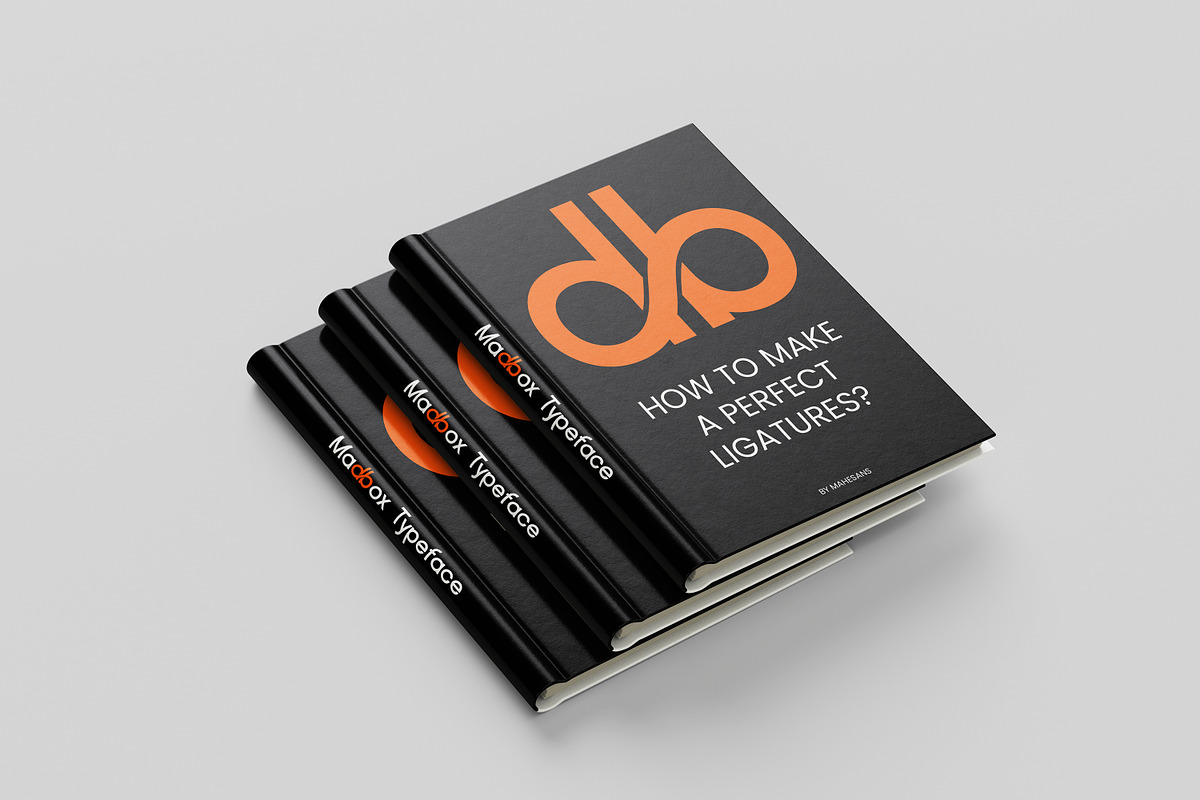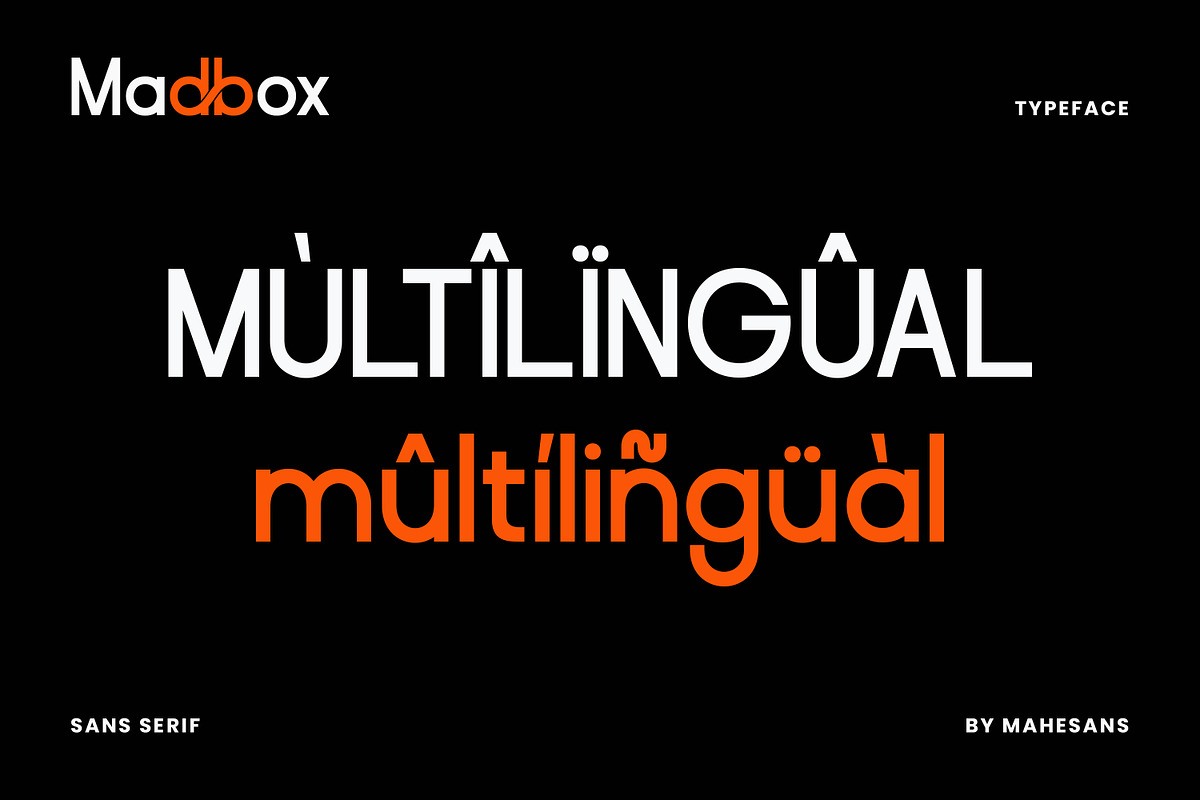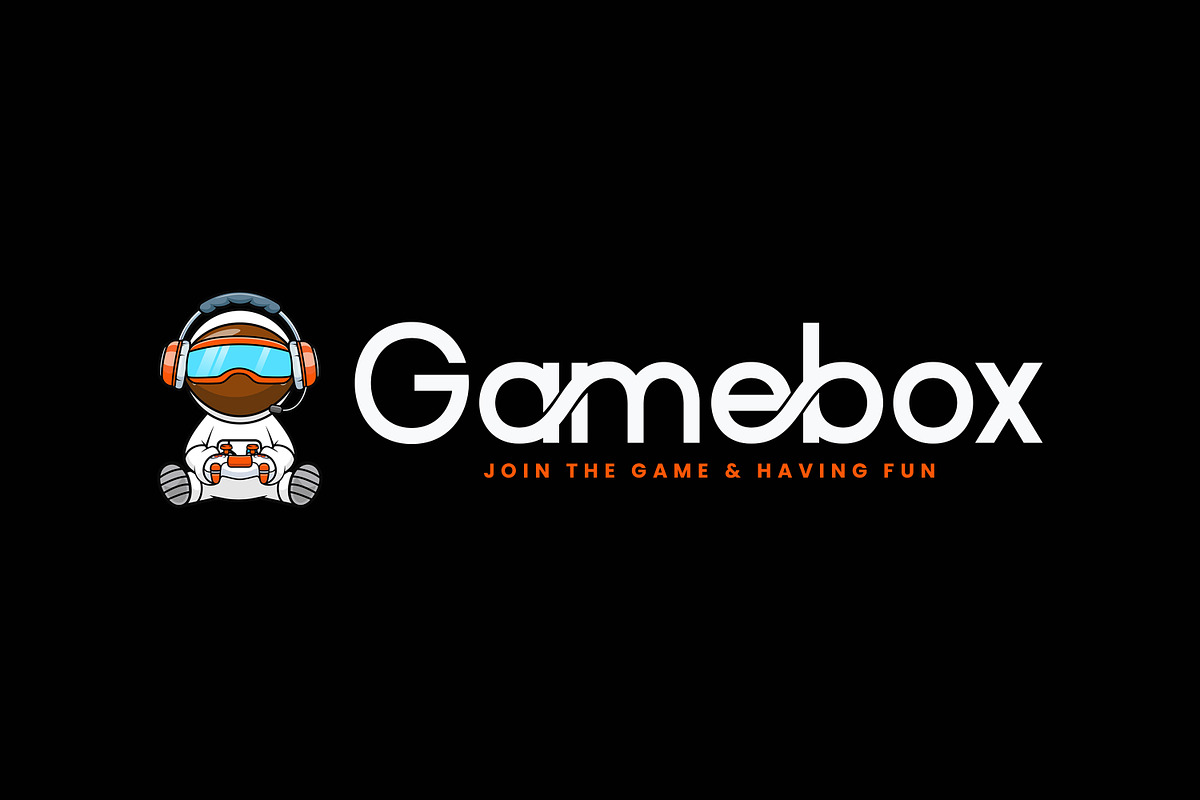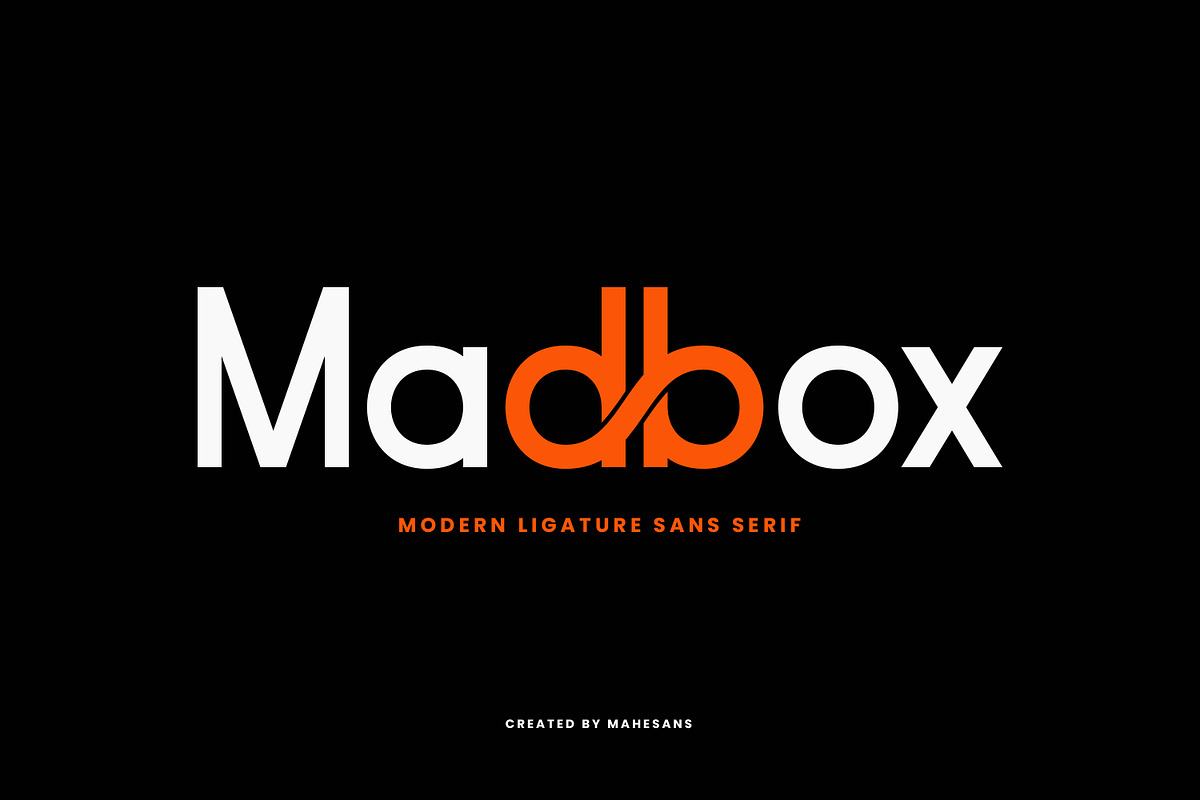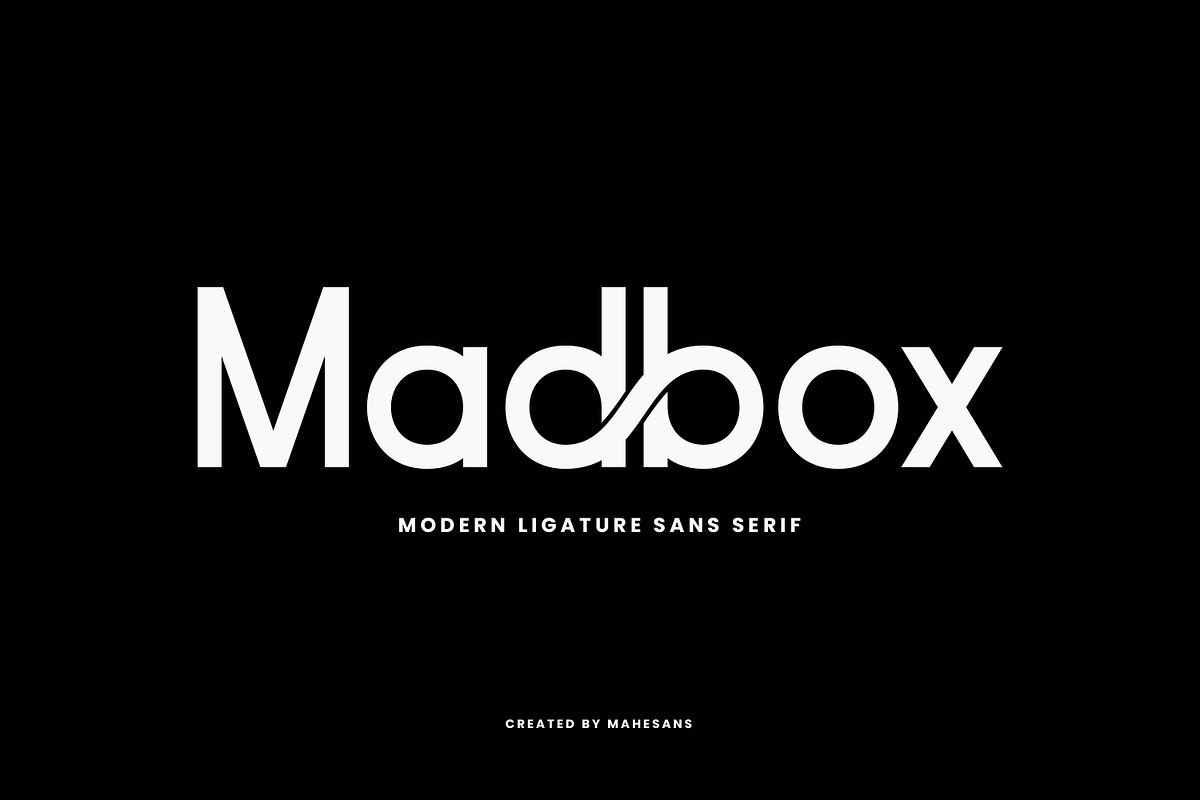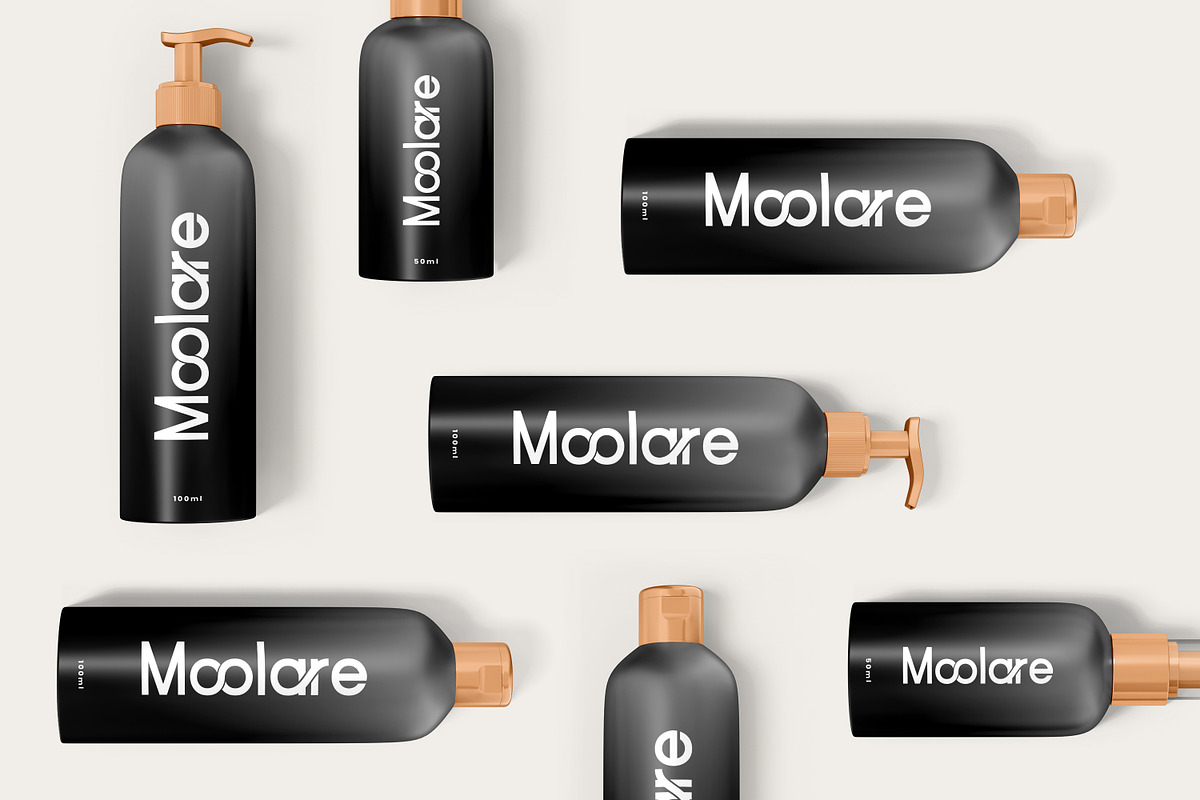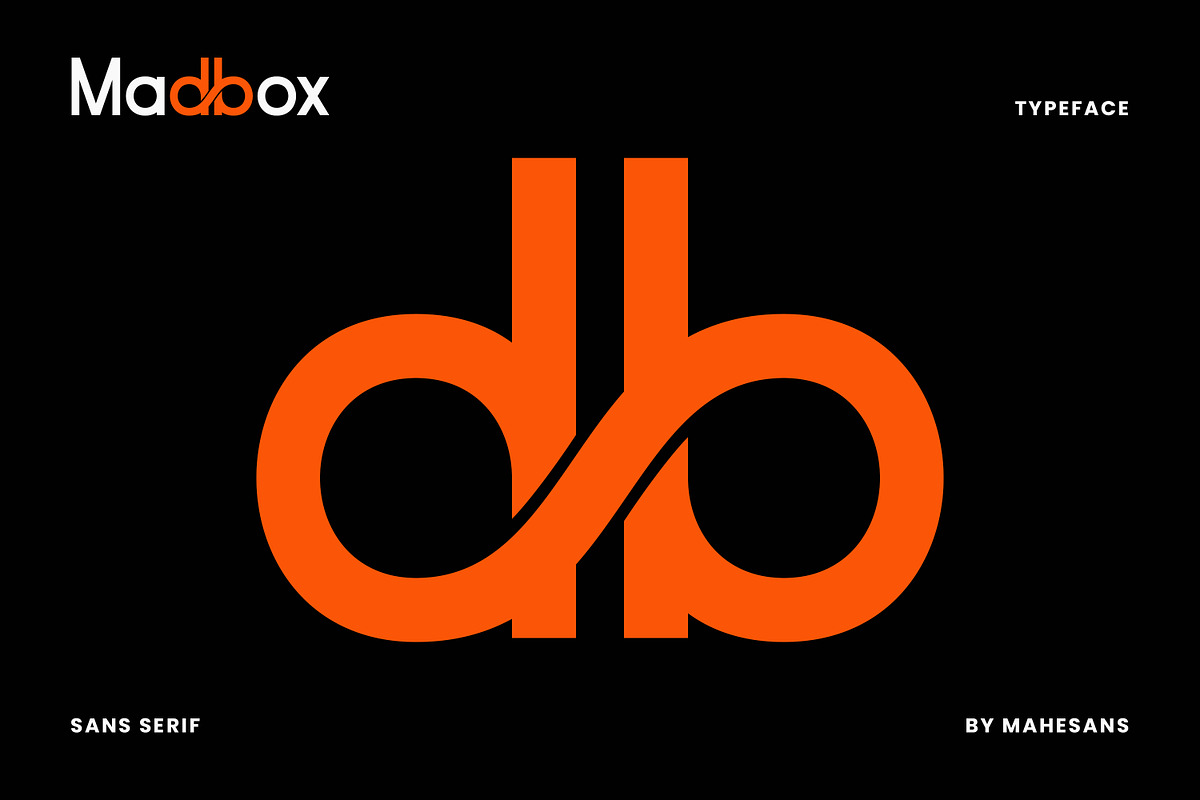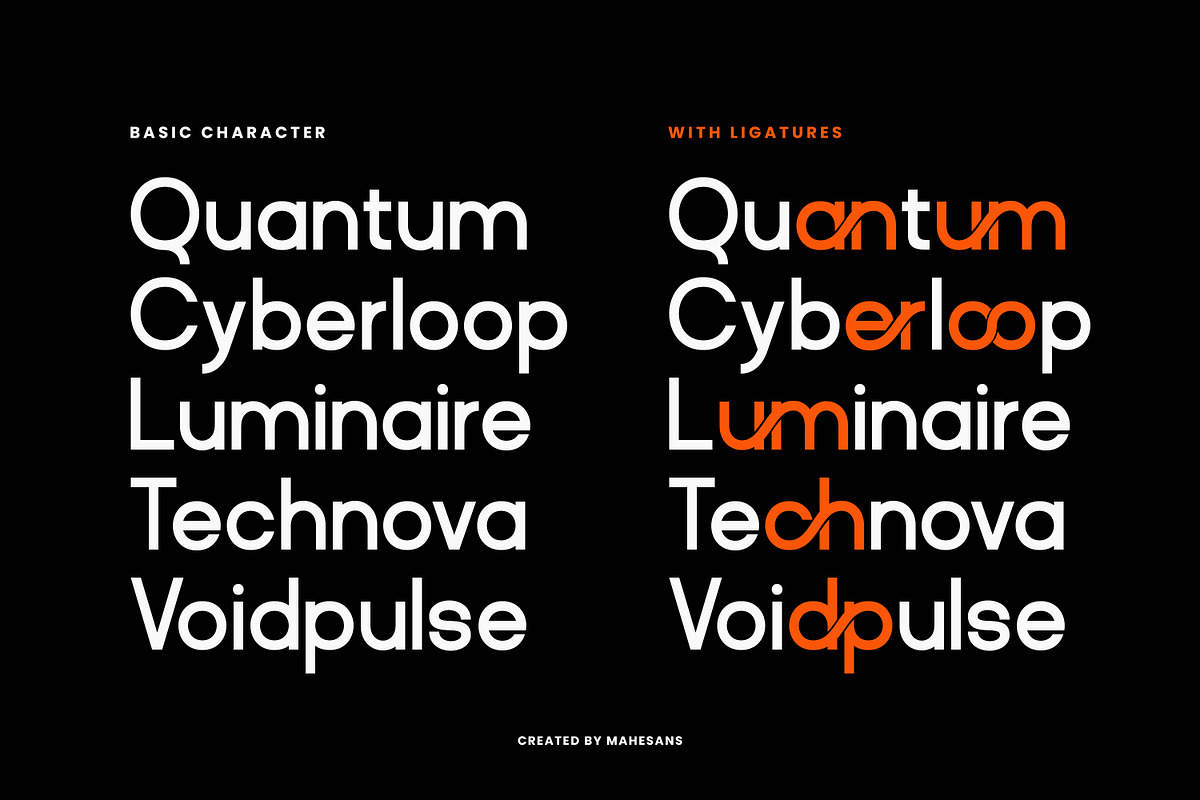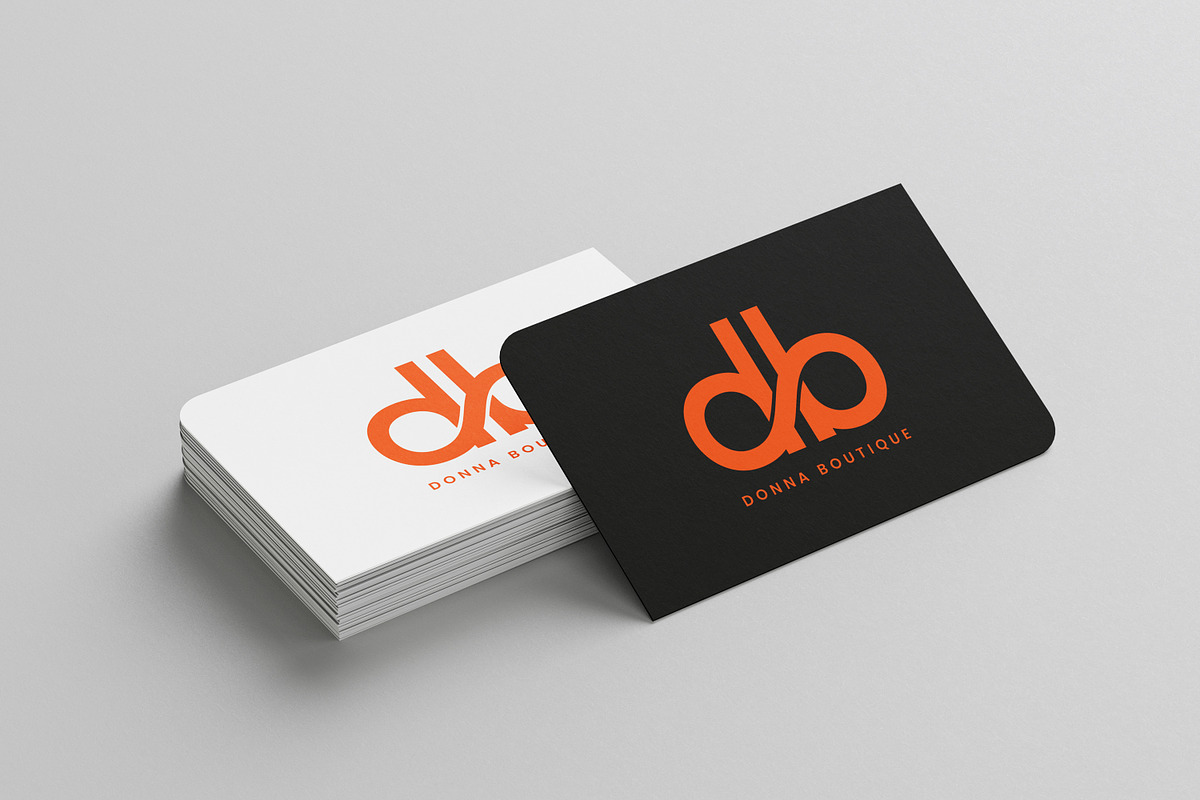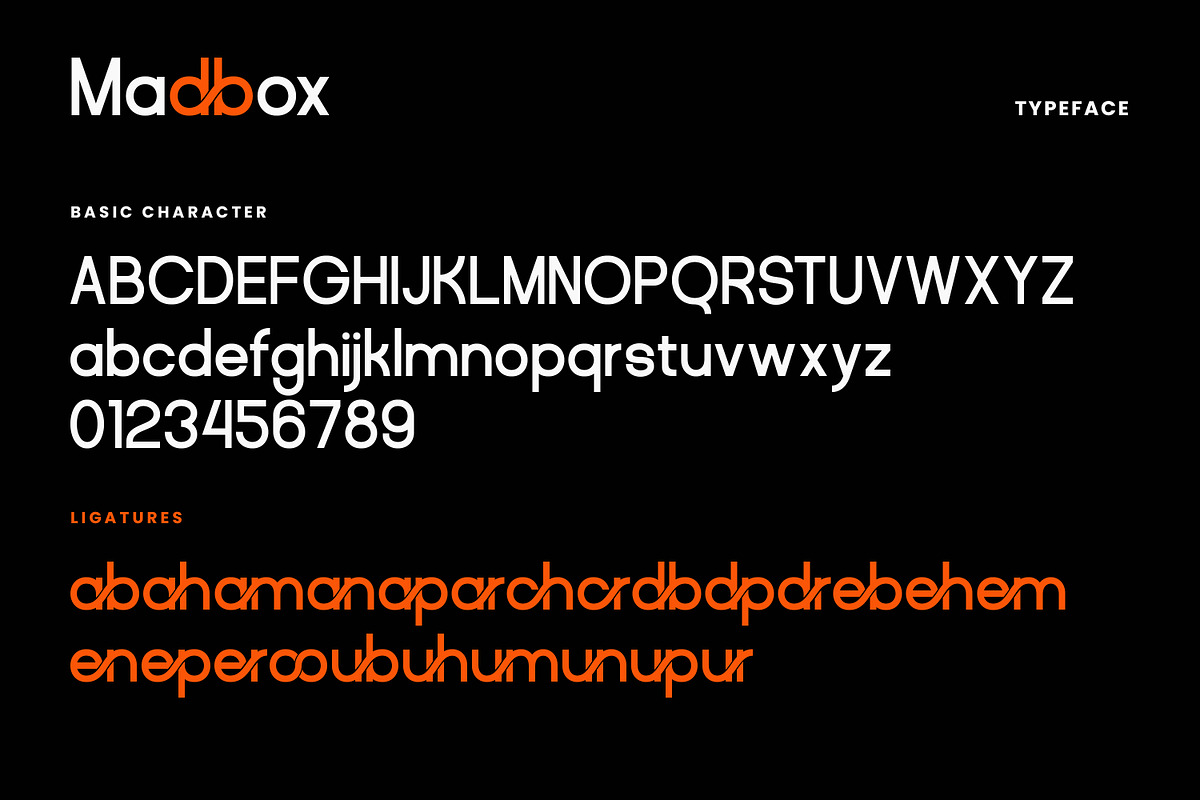
Madbox | Modern Ligature Sans Serif
Madbox is a clean and bold sans serif font with a modern geometric style. Its unique ligatures—especially the standout “db” combo—add a creative twist that makes any design pop. Perfect for logos, headlines, posters, and futuristic UI, Madbox blends simplicity with visual impact. Use it to give your brand a sleek and innovative look.
- Numberial & Punctuation
- Multilanguage